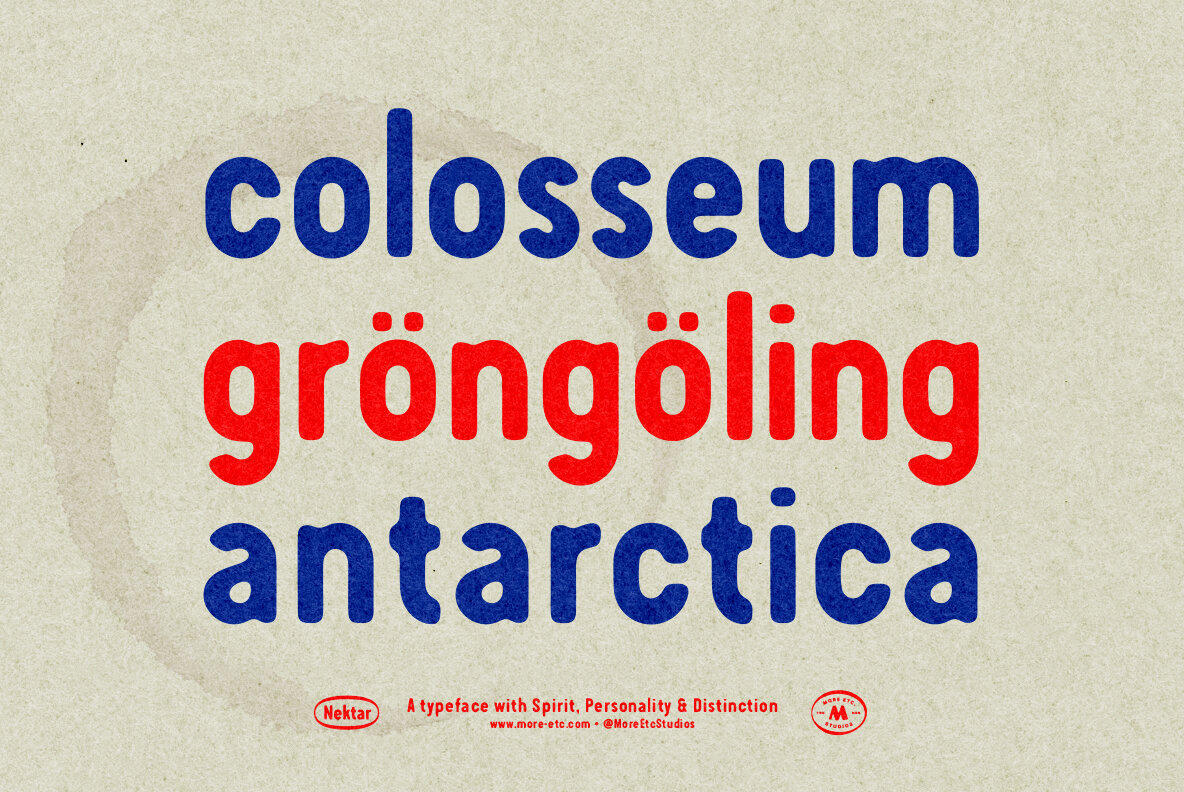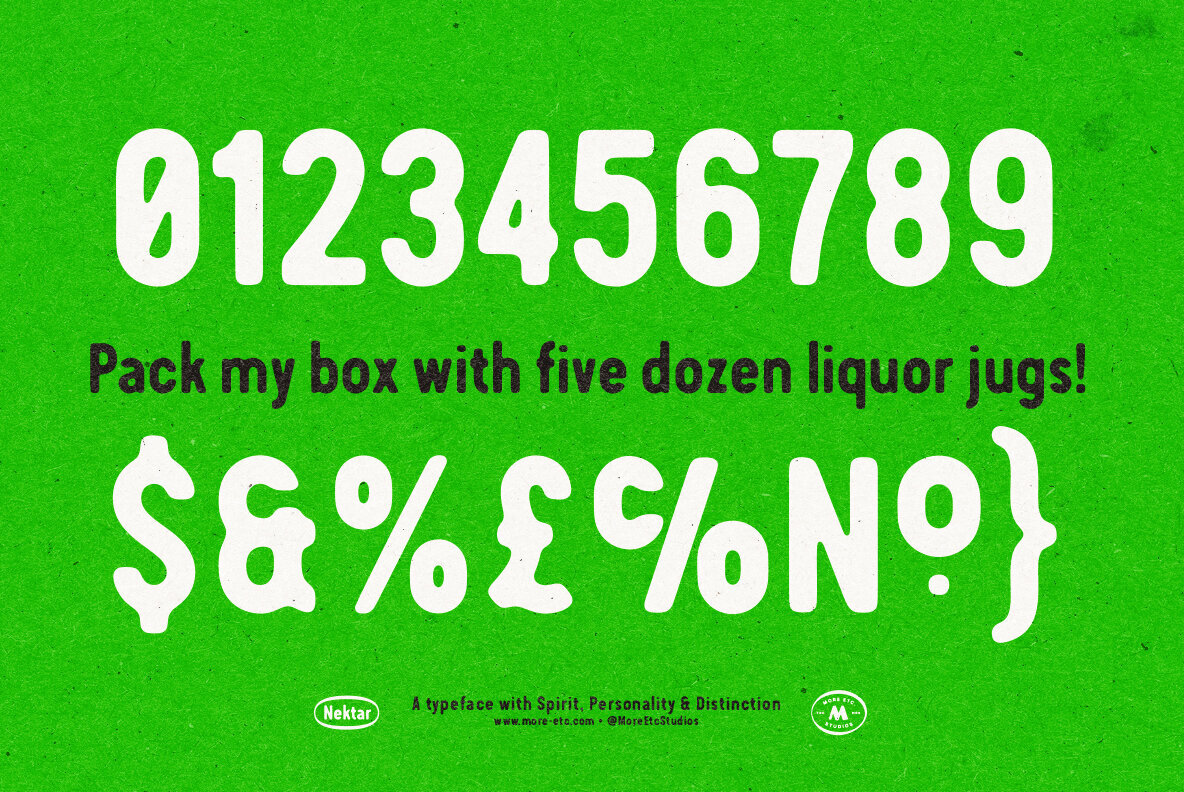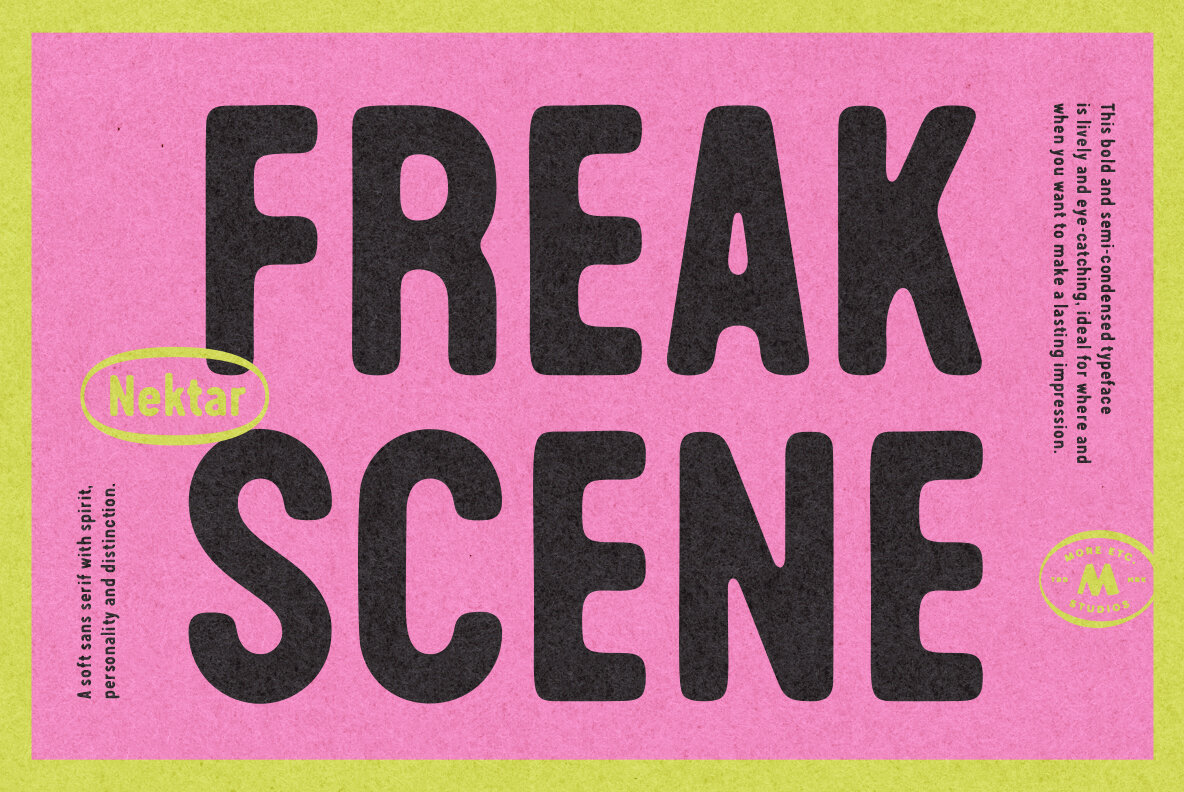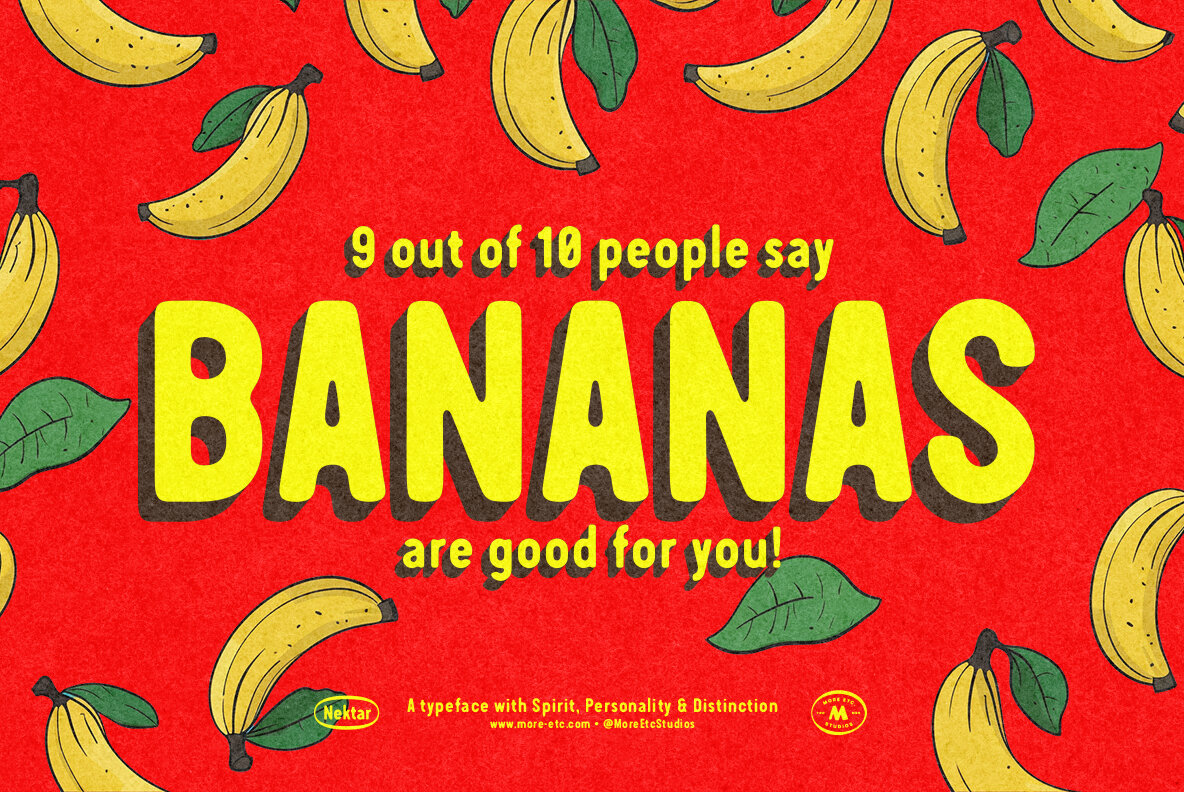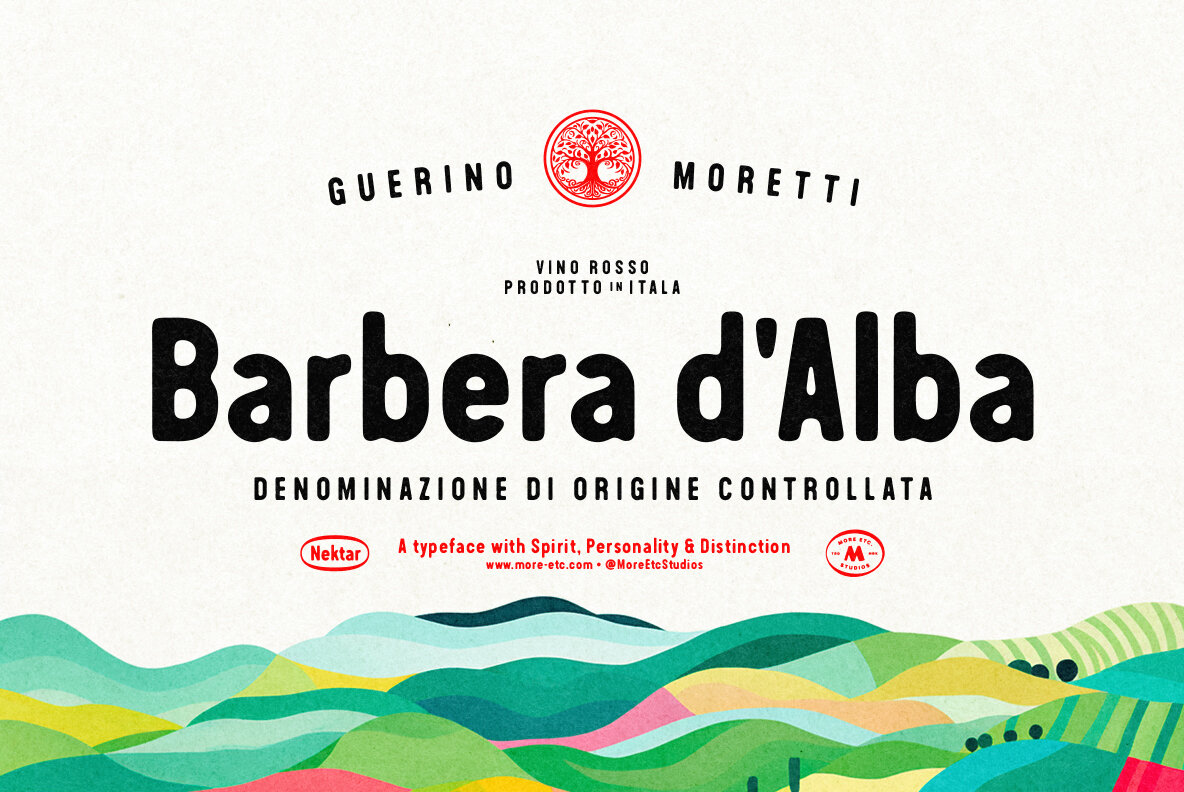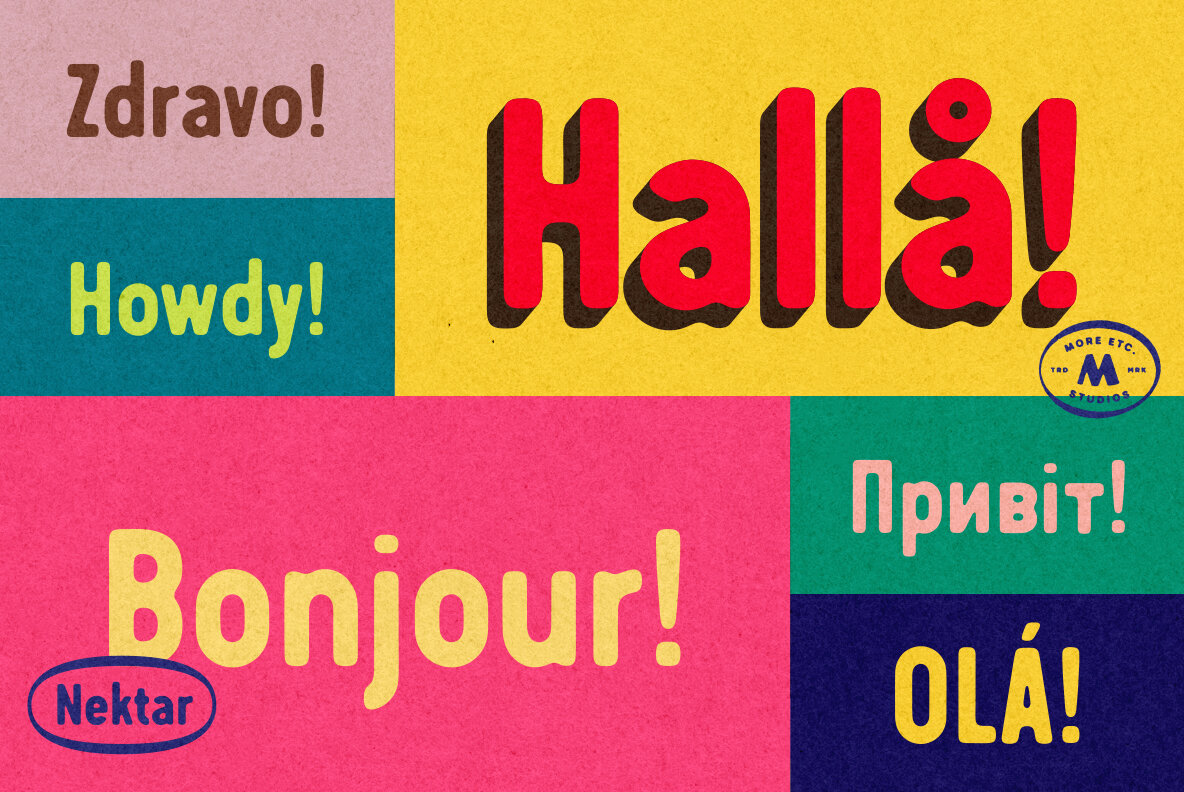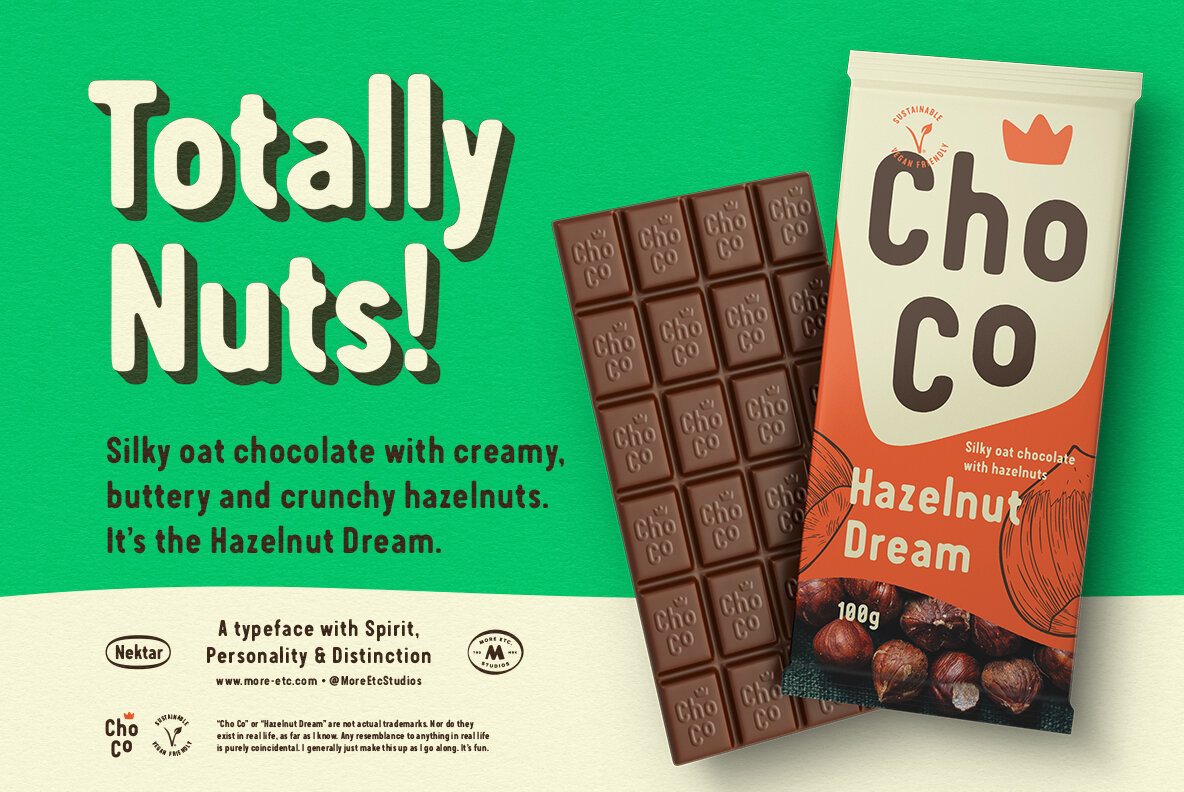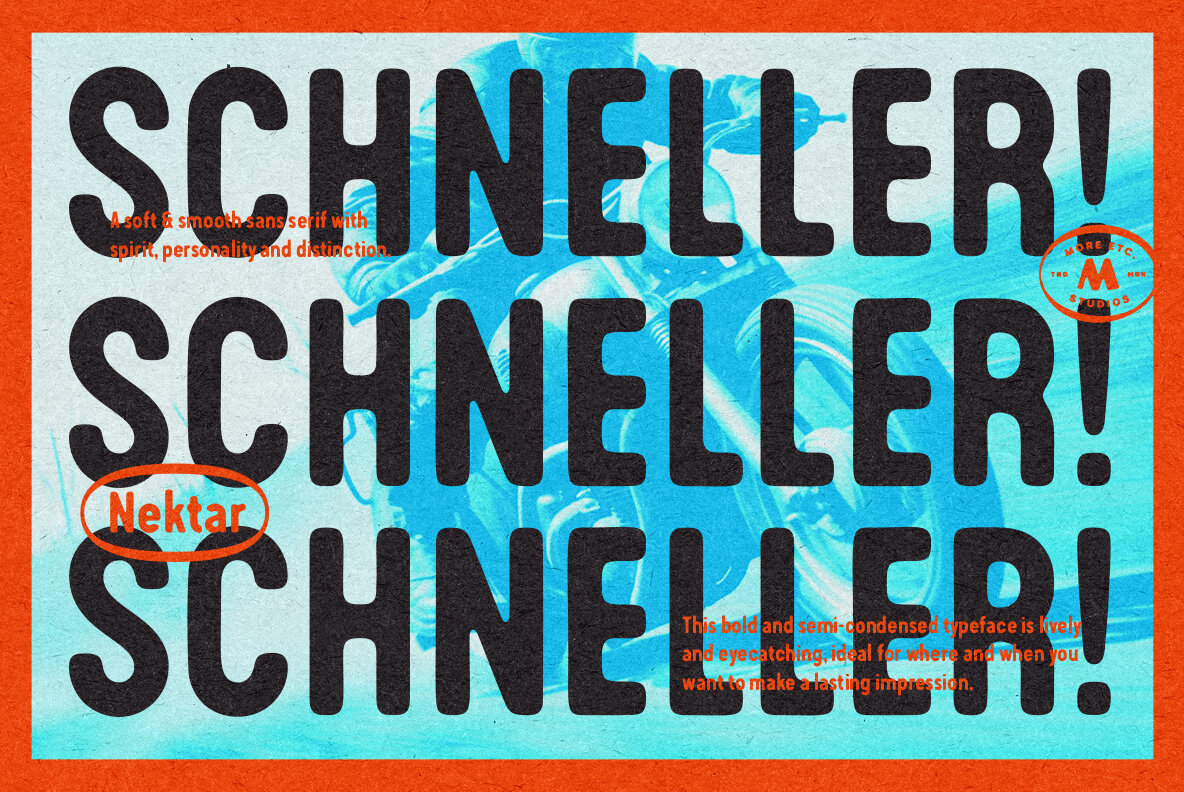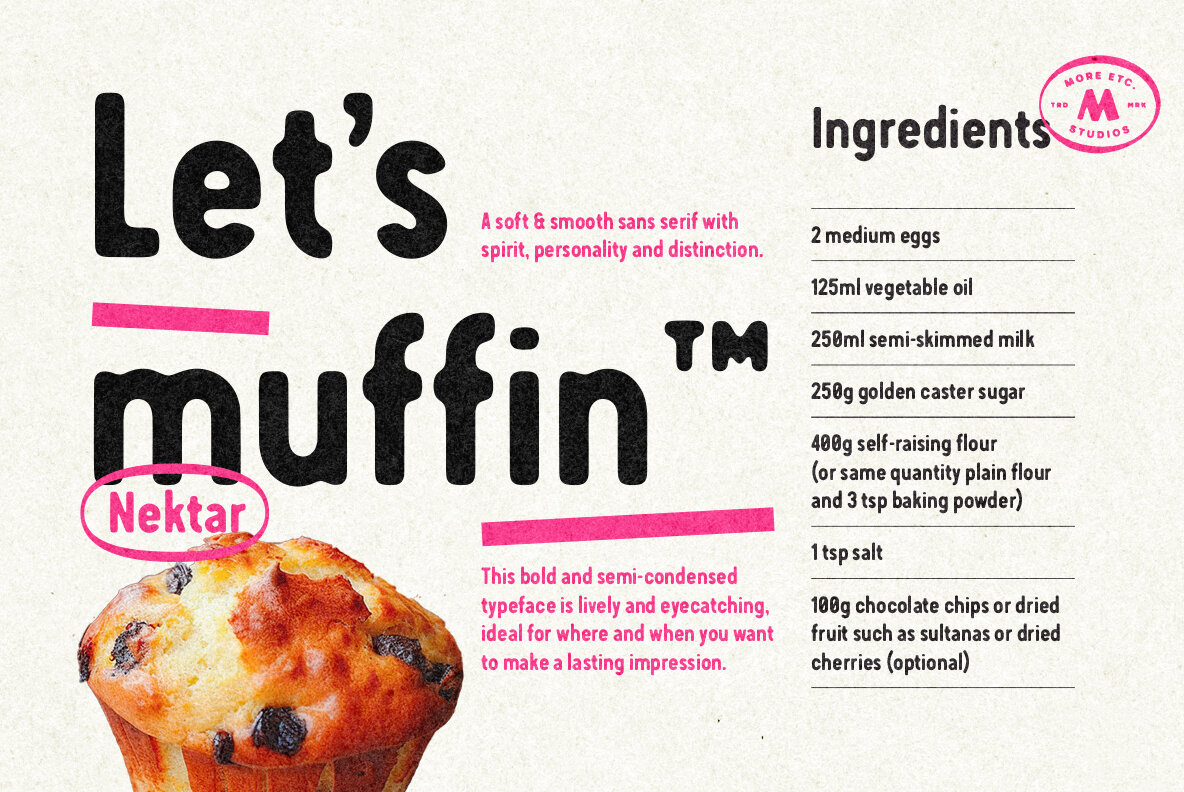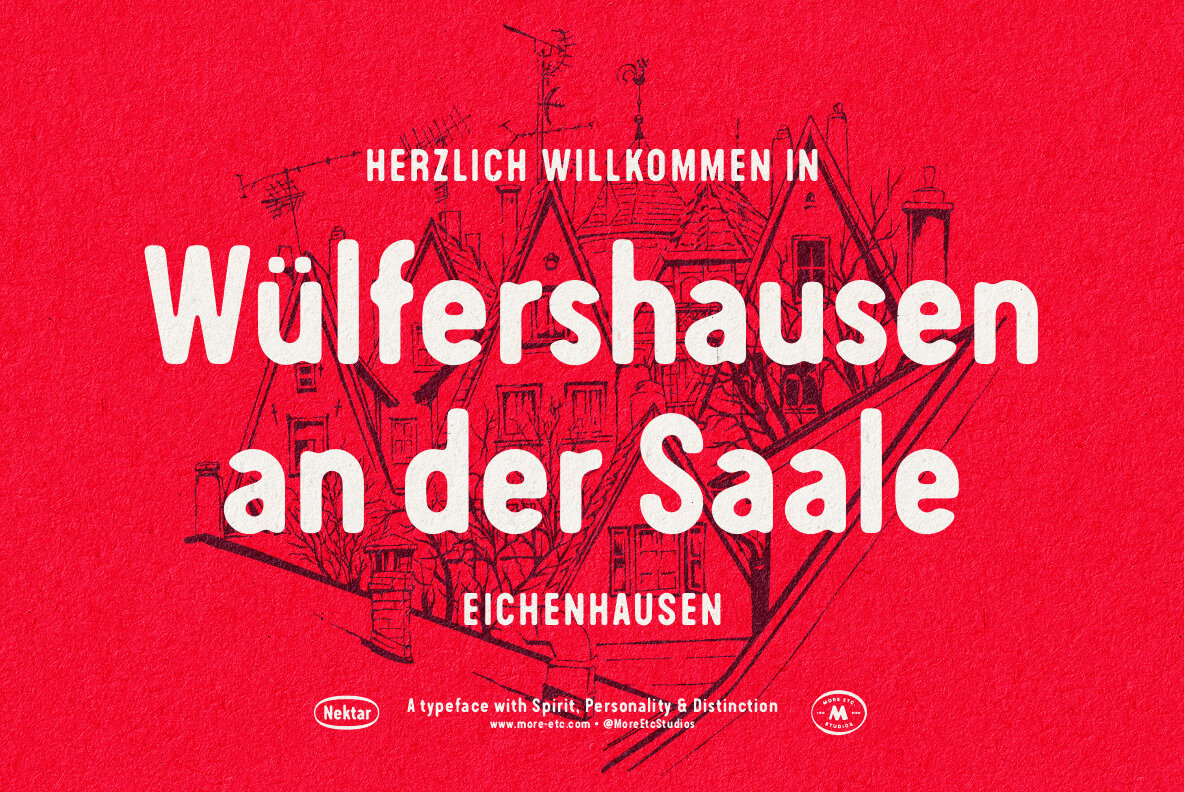
Nektar Font
Nektar is a soft and smooth sans serif typeface designed with a unique spirit and distinct personality. Inspired by the "perfect imperfection" of old prints, this bold, semi-condensed typeface combines a humanistic touch with eye-catching appeal. Its lively characteristics make it an ideal choice for designs seeking to convey a positive and engaging impression. With over 650 glyphs, the typeface offers both versatility and style, fitting seamlessly into a wide range of design applications.
With extensive multilingual support, Nektar accommodates more than 450 languages, including the Cyrillic script. This comprehensive language coverage ensures that designers can communicate their message effectively across diverse audiences. The typeface's design strikes a balance between artistic flair and functional readability, providing a unique blend of aesthetic quality and practical utility. Whether used in branding, editorial, or digital projects, Nektar offers designers the tools to create memorable and meaningful work.